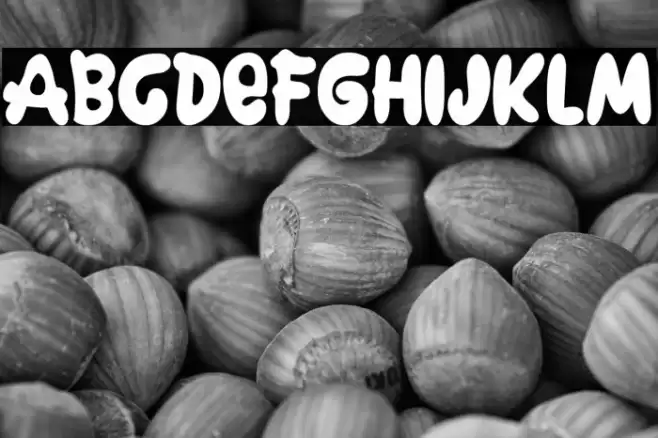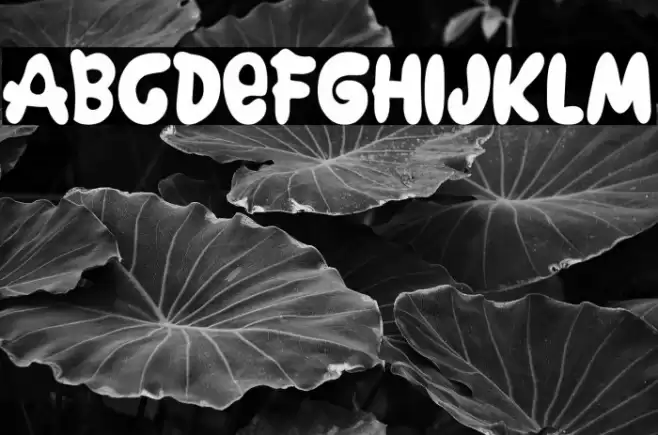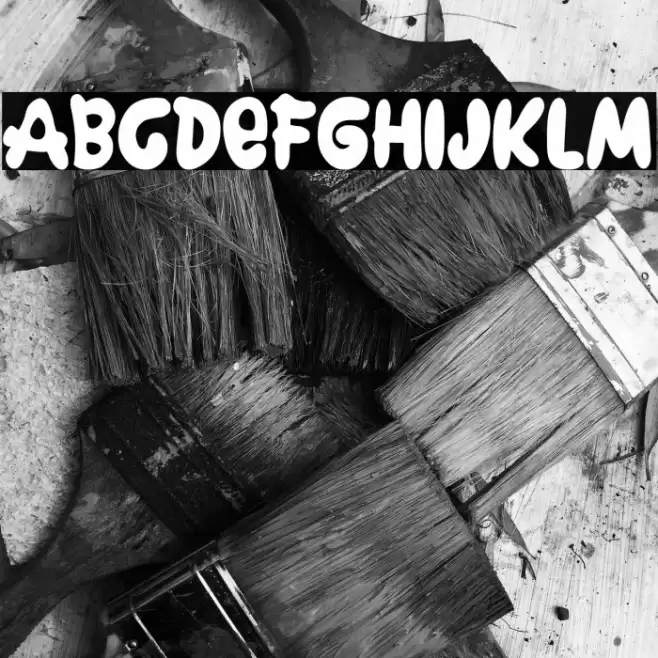
The Big Joe Font
The Big Joe Description
This font features a bold and playful style with thick, rounded strokes that give it a friendly and approachable appearance. The characters are slightly irregular, adding a hand-drawn feel that enhances its casual and informal nature. The uppercase and lowercase letters maintain a consistent weight, contributing to a cohesive look across the alphabet. The numerals and special characters are designed to match the overall style, ensuring uniformity. This font's unique personality makes it suitable for projects that require a touch of whimsy and creativity.
A bold, playful font with thick, rounded strokes and a hand-drawn feel from Uncategorized fonts.
- Font: The Big Joe
- Proposed Projects: Ideal for children's books, playful branding, greeting cards, and creative posters.
- Overall Style: Playful, Casual
- Use Case: Logos, Posters, Creative Projects
The Big Joe UPPERCASE
The Big Joe LOWERCASE
The Big Joe OTHER CHARS